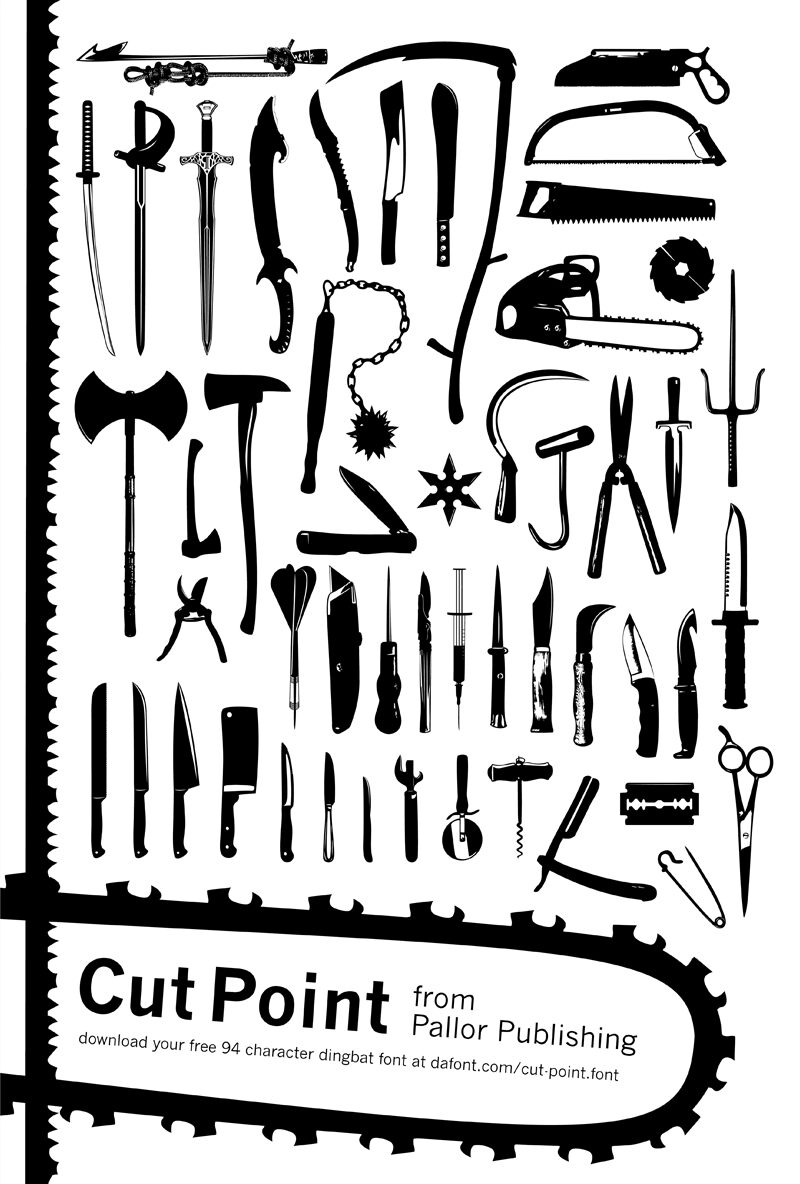
All characters are best used at large sizes. All of the small details start to show up at 300-600pt. Convert to outlines, and stretch them out as large as you like. Great detail was given to this font so that no kinks show up at larger sizes.
10 Pocket Knife icons are included in 3 stages:
Open, Retracted, Detached
The icons with Detached blades are meant to be used by designers who want to make up their own unique icon. Position the blade from the handle at the angle of your choosing.
Convert the icon to outlines, ungroup, then place the blade at the handle at any angle that is desired. Overlap the base of the blade with the top of the handle, then carefully delete the portions of the blade that should be covered up by the handle. By this method, you can open and close the blade into its handle to make a variety of different icons.